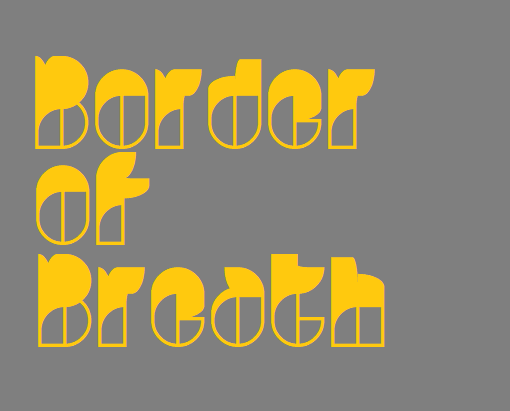
Amazing as always :)
The color pallete is fontstruct-y i like that xD
WOW.
This is truly awesome!
Congratulations! FontStruct Staff have deemed your FontStruction worthy of special mention. “Border of Breath” is now a Top Pick.
A breath of fresh air!
it's increible